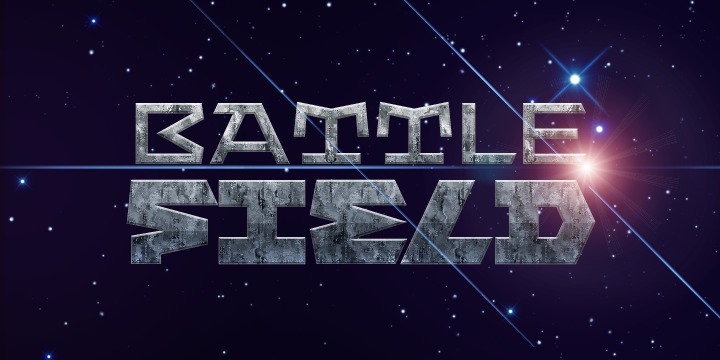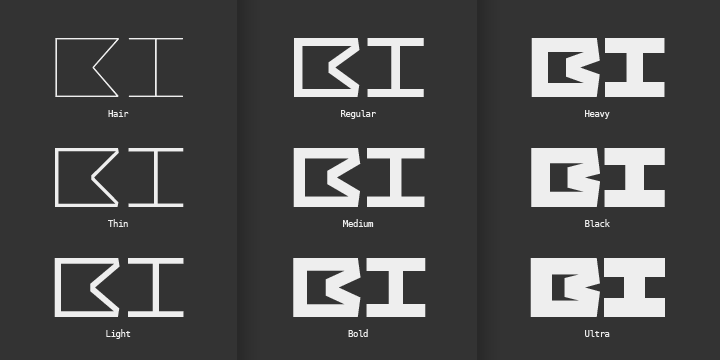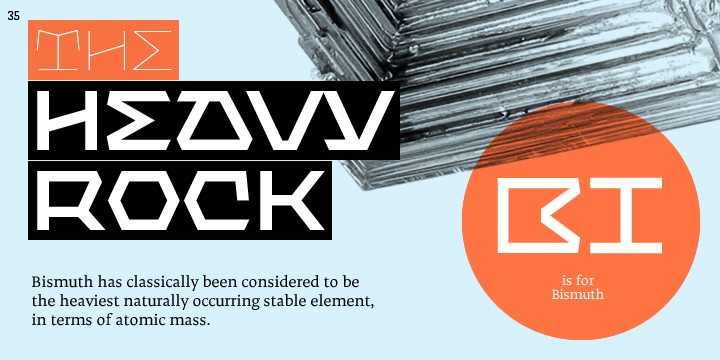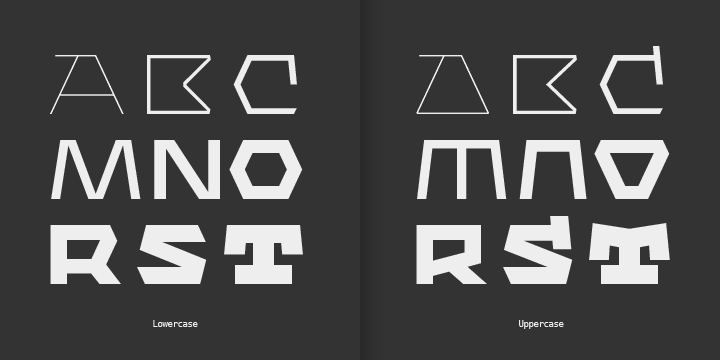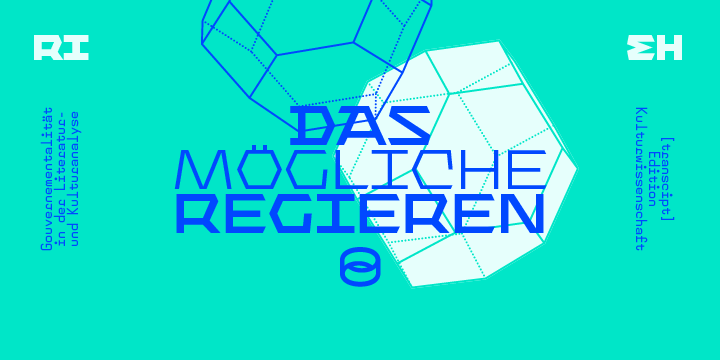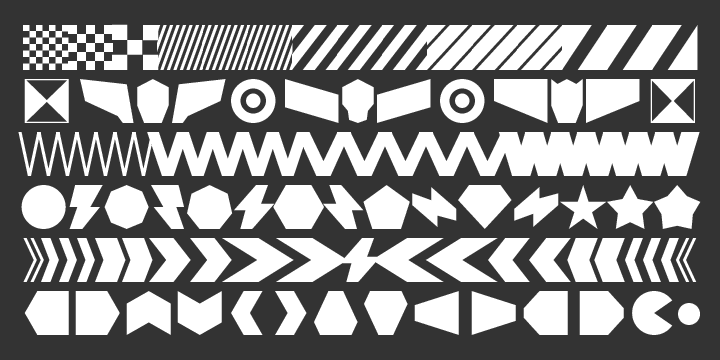
Bismuth Font Family
Bismuth is a simple versatile multi-purpose display typeface with nine weights. Both the upper and the lower case are capitals — the paired letters (e.g. Aa, Bb) differ in construction but keep the same width. The width is also consistent across all weights, making the fonts easily interchangeable.
The nine styles are accompanied with a free font Bismuth Symbols which contains more than one hundred various arrows, symbols and patterns for even more striking display typography.
Bismuth Hair
Bismuth Thin
Bismuth Light
Bismuth Regular
Bismuth Medium
Bismuth Bold
Bismuth Heavy
Bismuth Black
Bismuth Ultra
Bismuth Symbols